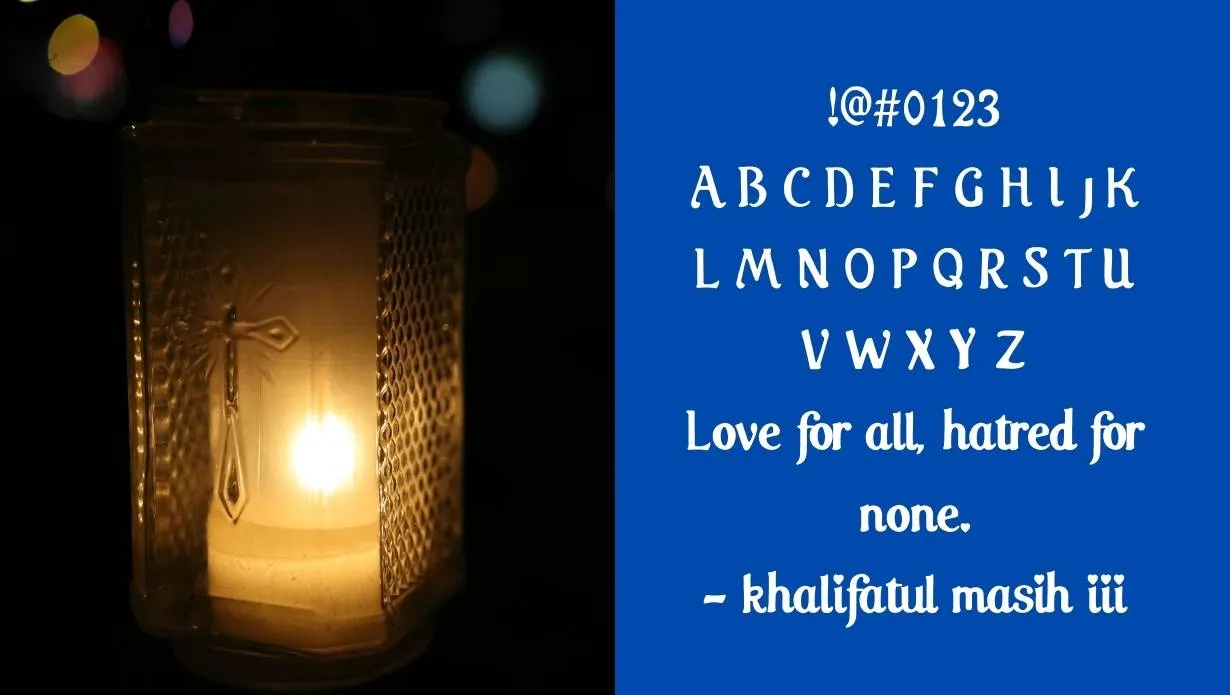
The care bears font is a typeface that was specifically designed for the Care Bears franchise. It was created in 1983 by Canadian graphic artist Earlene Haas. The font is a rounded, playful typeface that is perfect for children’s projects.
| Name | Care Bears Font |
| Designer | Earlene Haas |